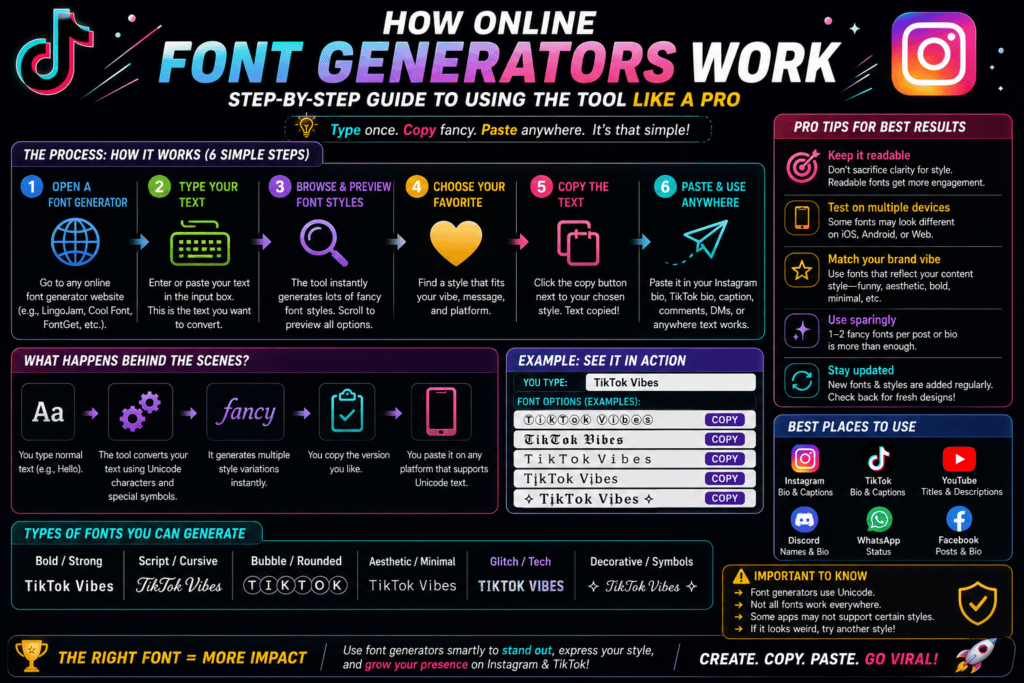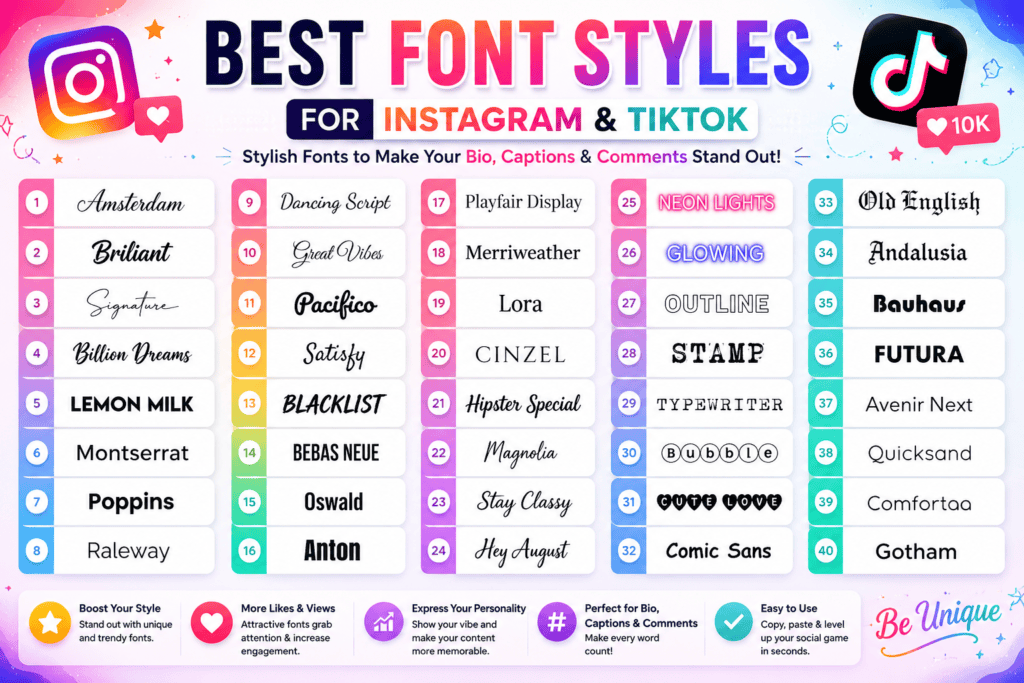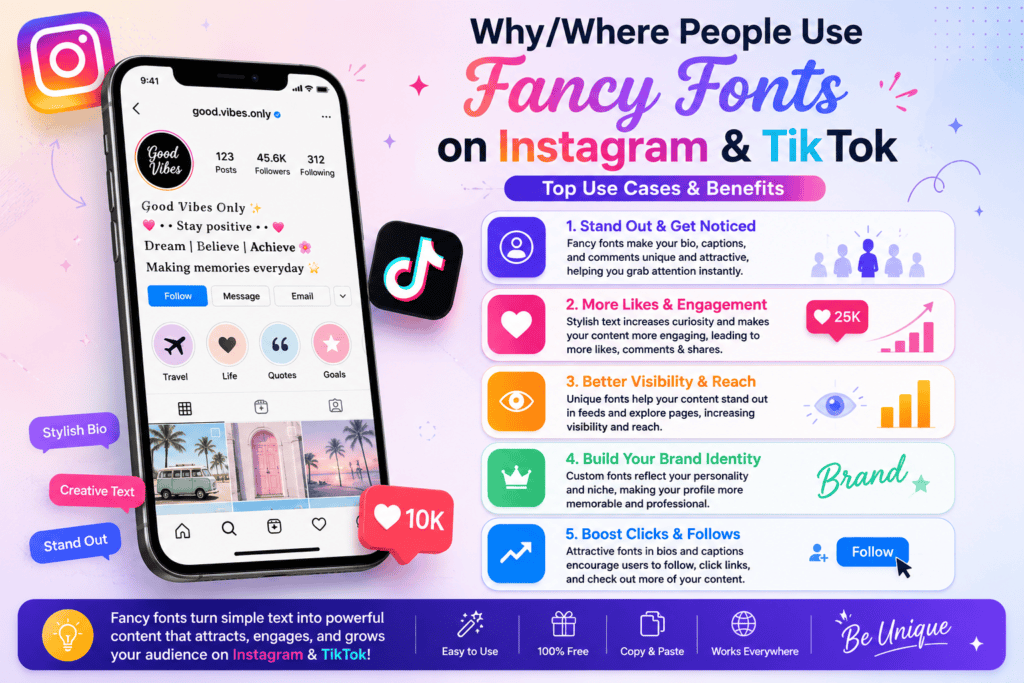
Digital identity demands distinction across major networks. When you discard boring text, profiles instantly transform. Utilizing stylish Unicode characters redefines your presentation on platforms like Instagram and TikTok, bypassing standard user interface restrictions completely now.
Our modern generator shifts ordinary communication paradigms by outputting uniquely styled letters instantly. Creators simply copy fancy text from the web interface, then paste it directly into bios to capture immediate audience attention online daily.
What Is an Online Font Generator? / What Is a Fonts Generator? (How It Works, Unicode Explained)
Operating an online tool bypasses traditional software. Instead of a download, this system utilizes a universal standard for text generation. It instantly converts normal text into decorative Unicode characters, changing visual psychology across global networks.
Because systems lack internal font files for styling, custom coding translates inputs within the input box. Consequently, these transformed characters render seamlessly, ensuring absolute compatibility across diverse digital platforms without any unexpected display design hitches.
How Online Font Generators Work (Steps / Using the Tool)
When digital practitioners open a font generator, the backend platform processes data via a global Unicode protocol rather than local software. You simply type your text, and it instantly converts characters into fancy text online.
After generation, users can copy a decorative style directly onto the clipboard. Then, paste this modern look into any chosen TikTok profile or interactive captions to bypass generic layouts, effectively capturing immediate mobile audience attention.
Step-by-Step Guide: Using a Font Generator for TikTok
Achieving algorithmic visibility requires maximizing every design choice. In your text box, type your bio, then click generate. This instantly transforms your profile, ensuring your TikTok account stands out beautifully with unique, stylized fonts immediately.
Simply copy the styled version to your clipboard now. Next, paste text into profile settings seamlessly. This entire transformation takes under 30 seconds, bypasses native formatting limits, and redefines your digital presence for every follower.
Why/Where People Use Fancy Fonts on Instagram and TikTok (Use Cases)
Digital creators frequently struggle to secure a profile visit on competitive platforms. Operating stylish fonts transforms a standard account, ensuring your unique bio style commands immediate attention and establishes a highly recognizable identity out there.
Maintaining visual consistency across diverse social profiles drives personal branding success. I find that implementing elegant or edgy typography grants a creative appearance, elevating ordinary Instagram bios into digital expressions of distinct artistic individual sophistication.
Profiles Become More Eye-Catching
Bespoke personas necessitate highly distinct graphic presentation. Employing modified usernames reshapes mundane grids into magnetic focal zones. Whenever onlookers scan crowded streams, customized aspects guarantee someone’s account radiates prominence rapidly, rising above generic layouts beautifully.
Refreshing individual bios directly alters visitor retention. Introducing uncommon alterations across TikTok timelines secures excellent benefit, rendering ordinary handles appear incredibly vibrant while effortlessly standing out among millions of intense rival human producers registered nowadays.
Better Personal Branding
Digital identity relies heavily on distinct typography to stand out in crowded feeds. Utilizing a reliable fonts generator allows creators to systematically personalize their profiles, projecting authority and immediate brand recognition across highly competitive social platforms.
Cultivating a specific vibe ensures long-term trust and audience engagement. Choosing the right typography creates structural consistency and consumer familiarity, transforming basic social accounts into memorable, authoritative platforms that instantly command market attention.
Creative Expression
Digital creators utilize unique styling to elevate their creative expression across modern networks. By transforming standard profiles into visual statements, individual curators establish distinct identities that resonate deeply within algorithmic feeds without relying on tools.
This artistic choice enhances personal branding by projecting tailored emotional aesthetics directly onto viewers. Strategic typography enables immediate connection, ensuring that strategic messaging bypasses conventional limitations and transforms routine engagement into unforgettable curated online experiences.
Best Font Styles for Instagram and TikTok
Will It Work on Mobile Devices?
Modern ecosystem architecture ensures every handheld device renders digital aesthetics seamlessly. Testing confirms outstanding support across systems, meaning you rarely need an external app. This universal infrastructure makes rendering instantly Mobile Friendly for creators everywhere.